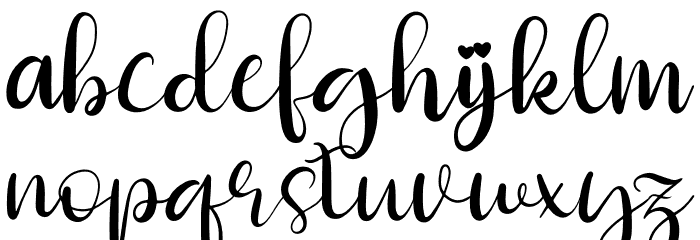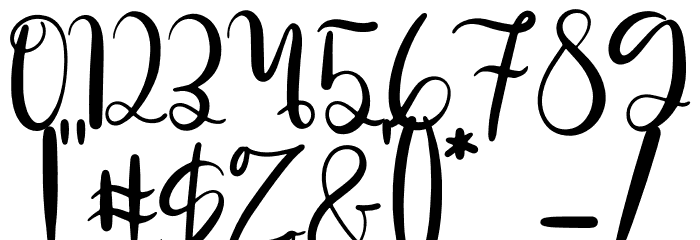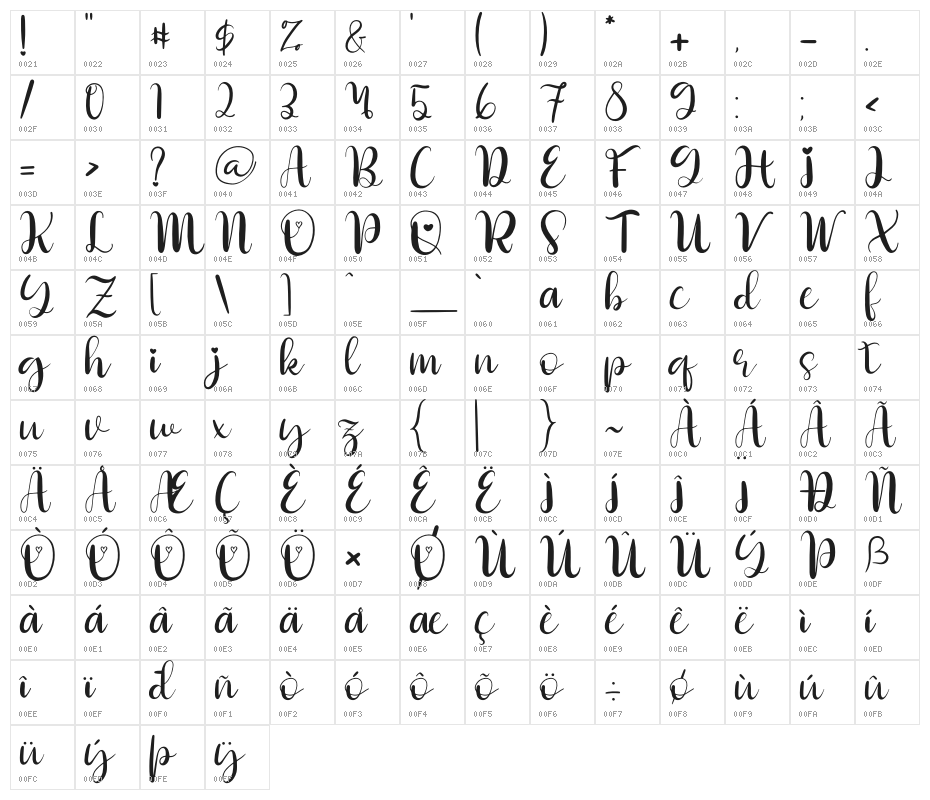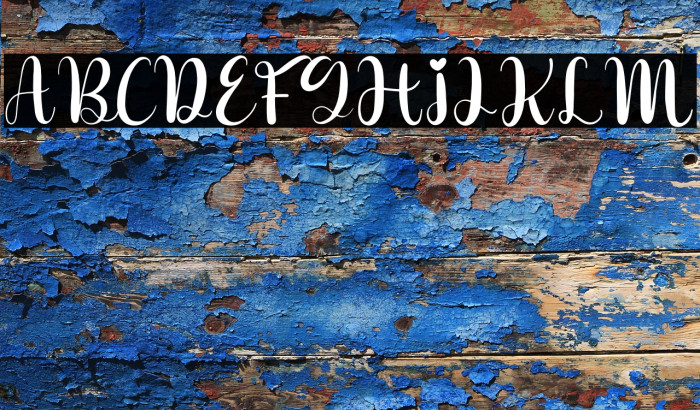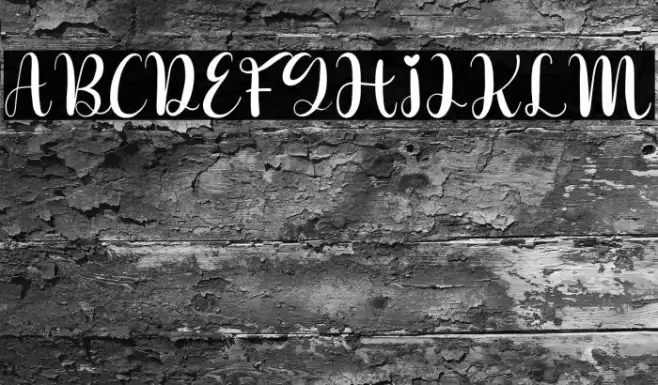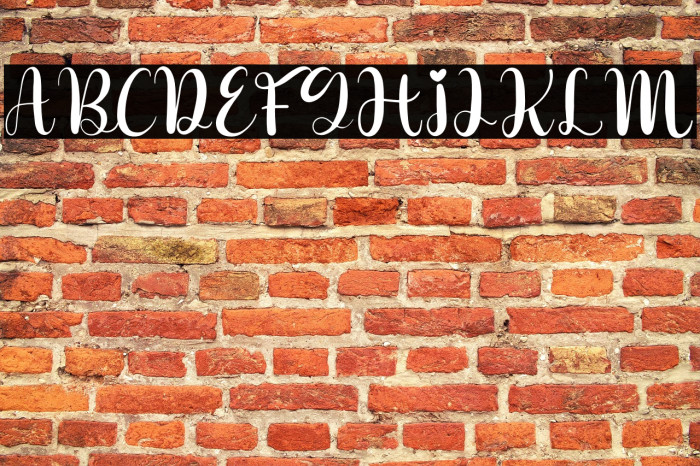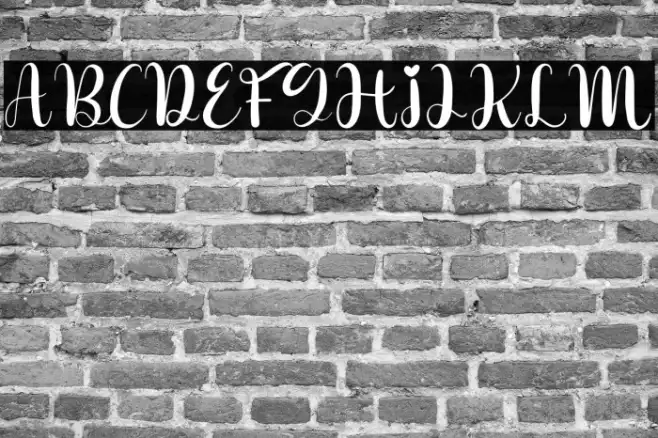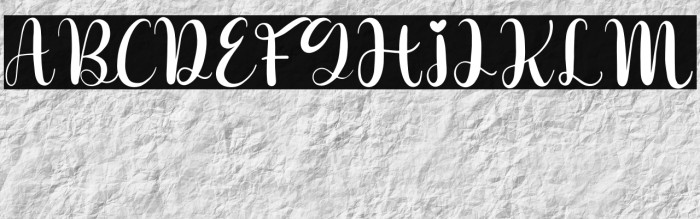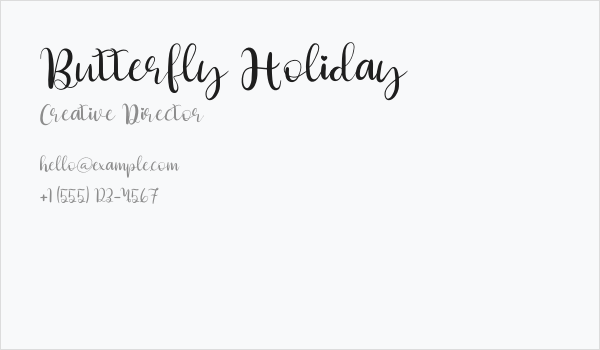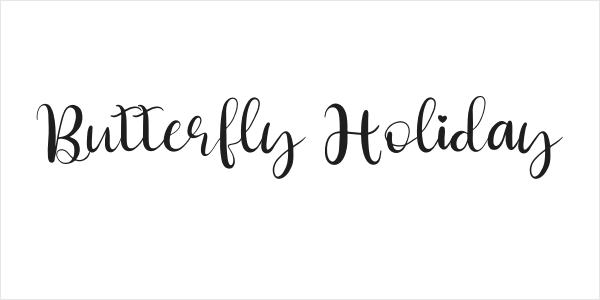
Butterfly Holiday Font
This font features a whimsical and playful script style, characterized by its flowing, cursive letters. The uppercase letters are elegantly looped, with some incorporating heart motifs, adding a touch of charm and romance. The lowercase letters maintain a consistent flow, with smooth connections and occasional flourishes. Numbers and special characters are designed to match the playful aesthetic, with bold strokes and unique shapes. The overall appearance is lively and expressive, making it ideal for creative and decorative applications.
A whimsical script font with playful loops and heart motifs.
- Font: Butterfly Holiday
- Proposed Projects: Ideal for wedding invitations, greeting cards, branding, and decorative projects.
- Category: Script
- Use Case: Logos, Invitations, Decorative text